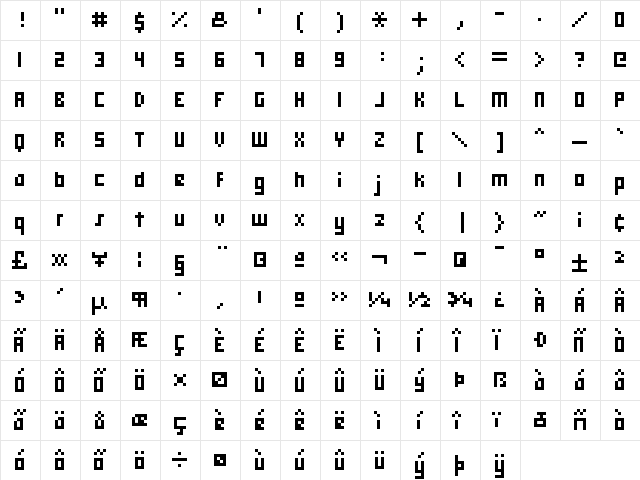
hooge 05_58 Regular Font Preview
hooge 05_58 Regular
hooge 05_58 Regular Font Details
Design Context for hooge 05_58 Typeface
hooge 05_58 is a composed and adaptable typeface that performs quietly and consistently across a wide range of design contexts.